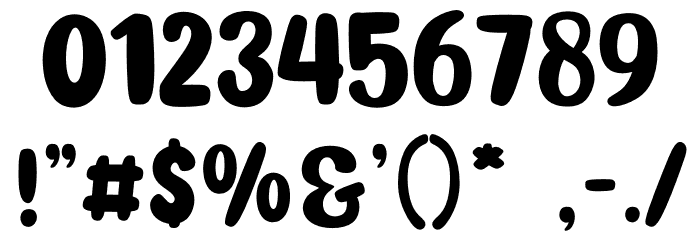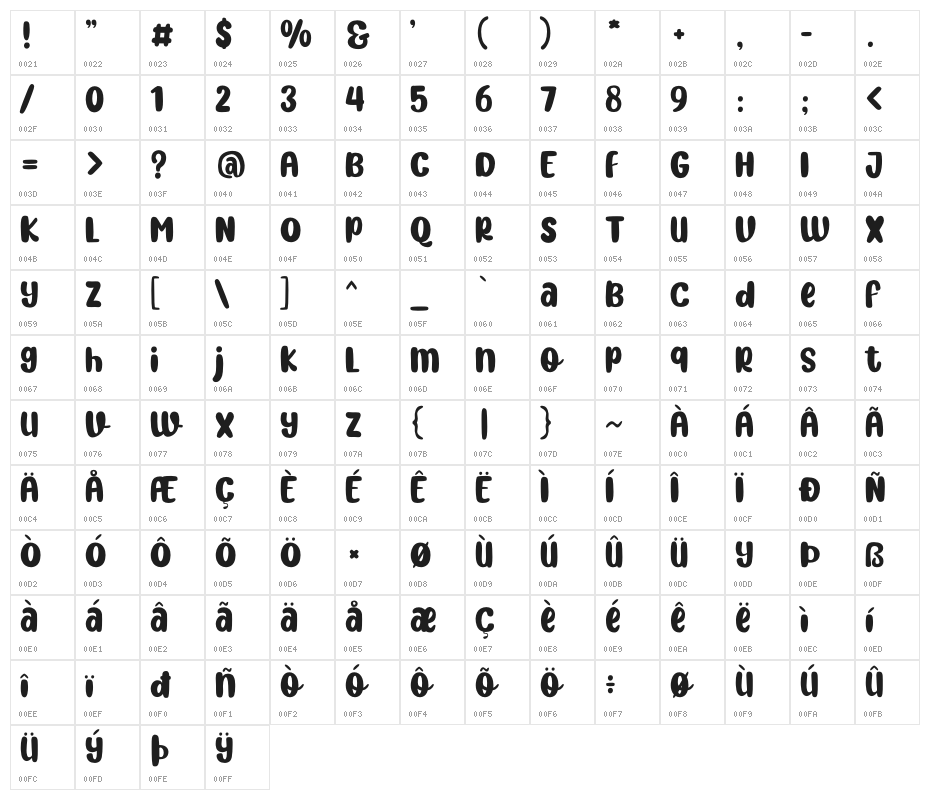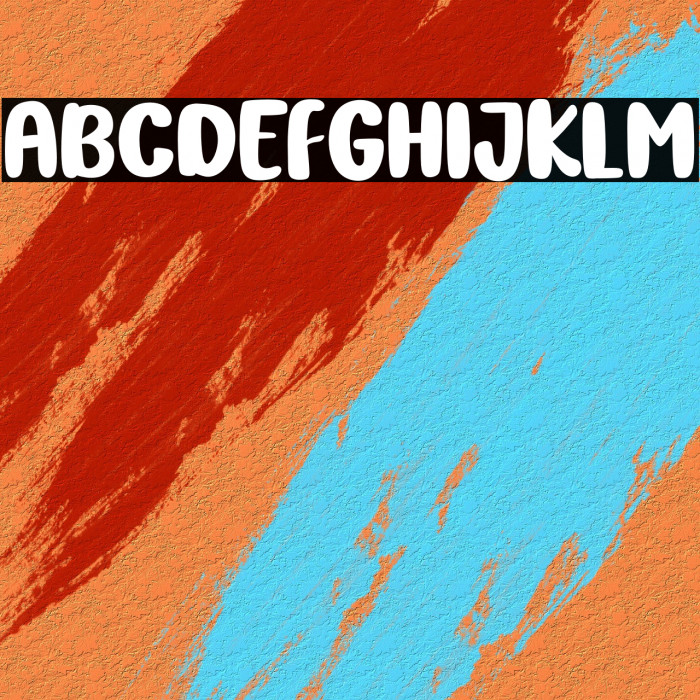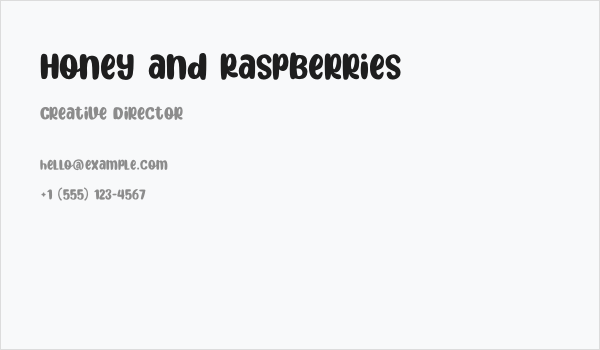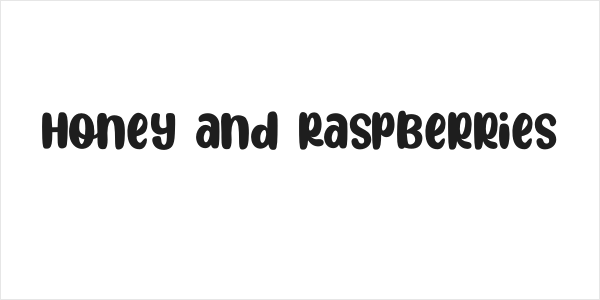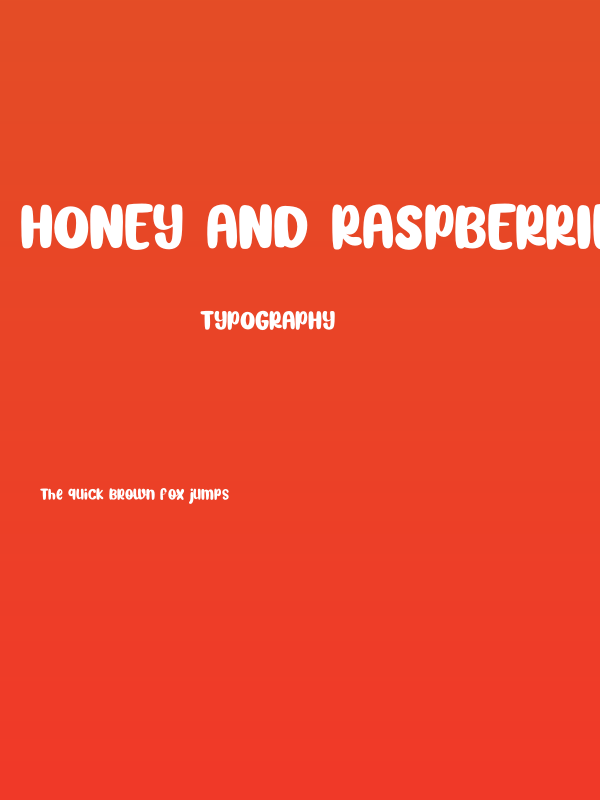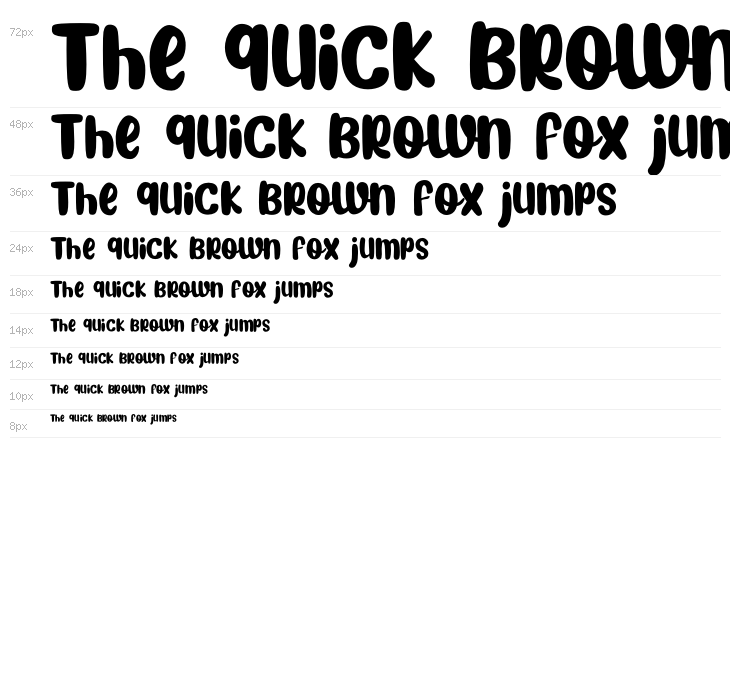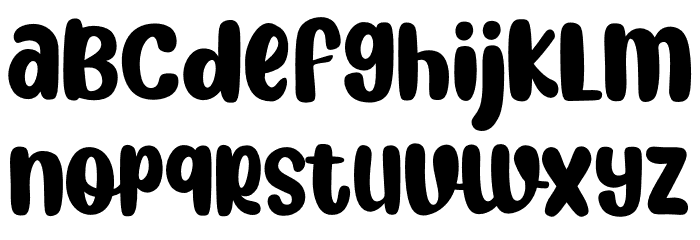
Honey and Raspberries Font
Honey and Raspberries Description
This font features a playful and bold style, characterized by its thick, rounded strokes and smooth curves. The letters are closely spaced, creating a cohesive and energetic appearance. The uppercase and lowercase letters maintain a consistent weight, contributing to the font's uniformity. The numbers and special characters share the same boldness, ensuring a harmonious look across all elements. This font's design is both approachable and lively, making it suitable for projects that require a friendly and inviting tone.
| Proposed Projects | Ideal for children's books, playful branding, greeting cards, and social media graphics. |